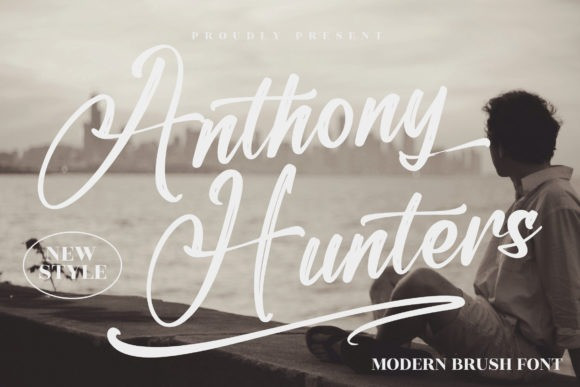
Anthony Hunters Brush Font
Anthony Hunters is an exquisite handwritten font, masterfully designed to become a true favorite. It maintains its classy calligraphic influences while feeling contemporary and fresh. Fall in love with it and bring your projects to the highest levels!